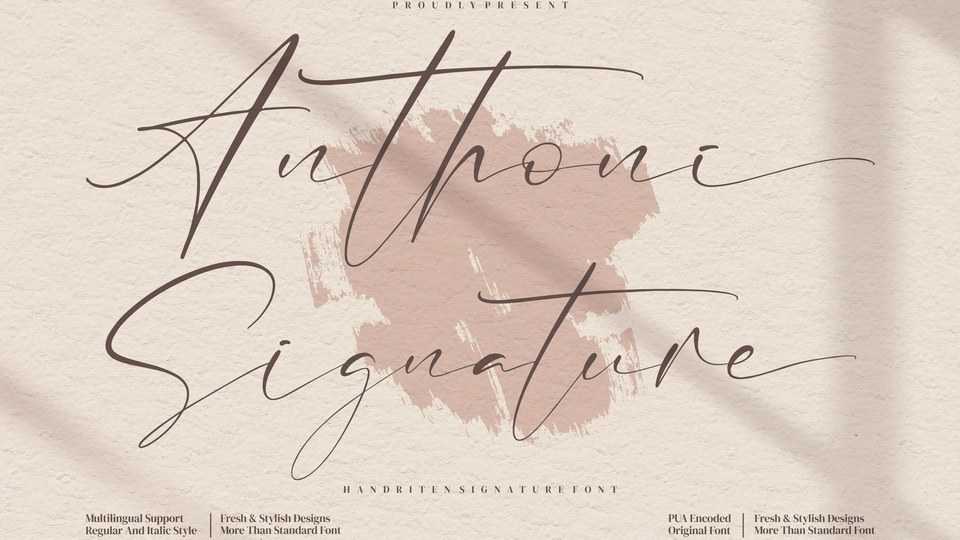
Download Anthoni Signature font, a stylish handwritten typeface with an elegant flow. Anthoni Signature font is suitable for any luxury projects that need a premium signature taste.